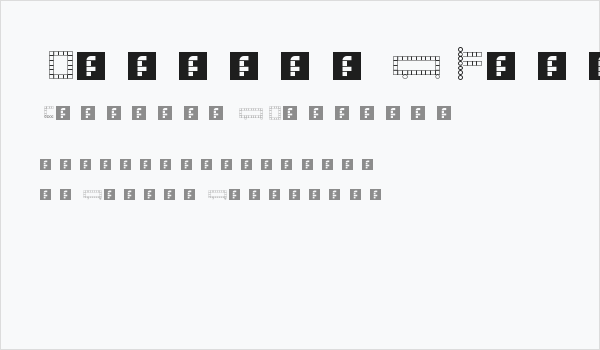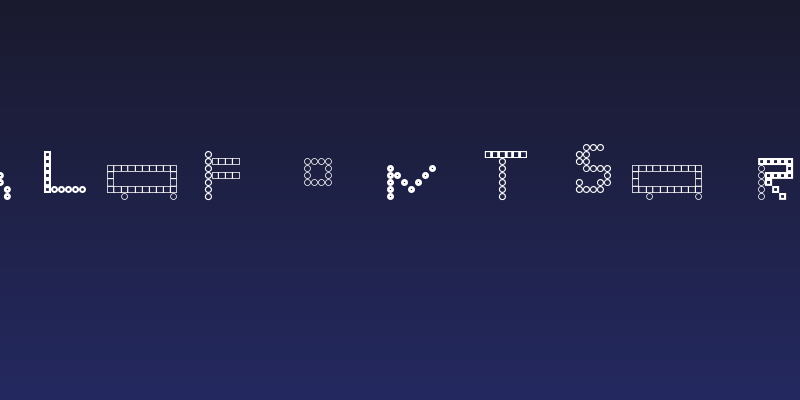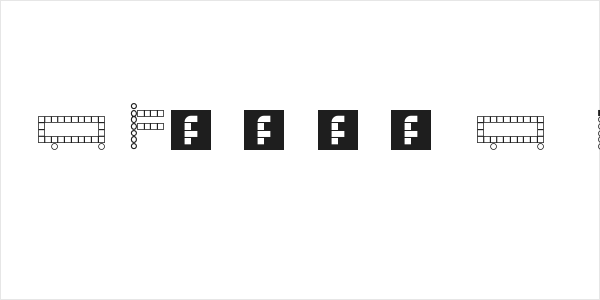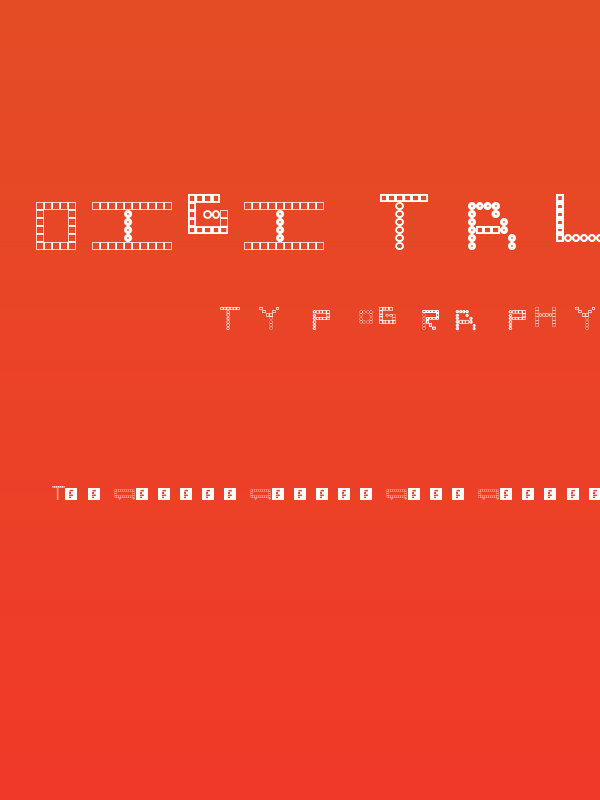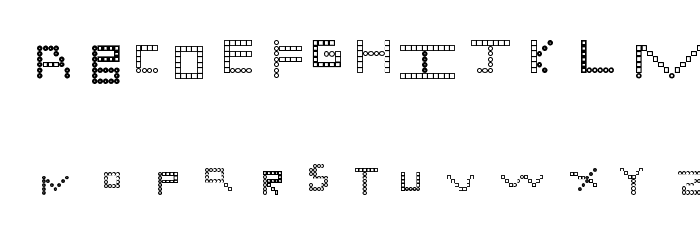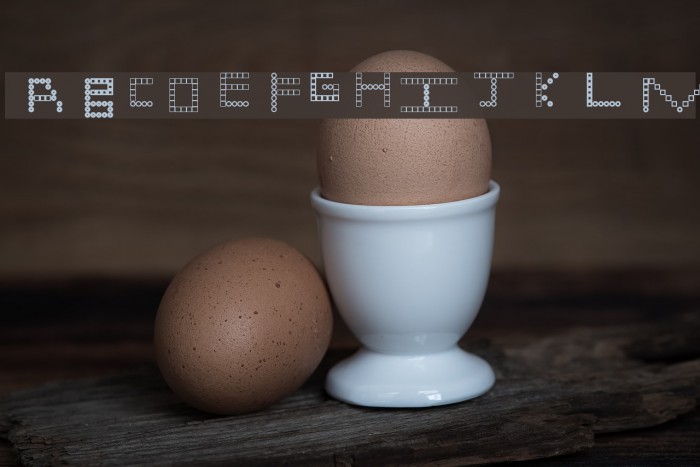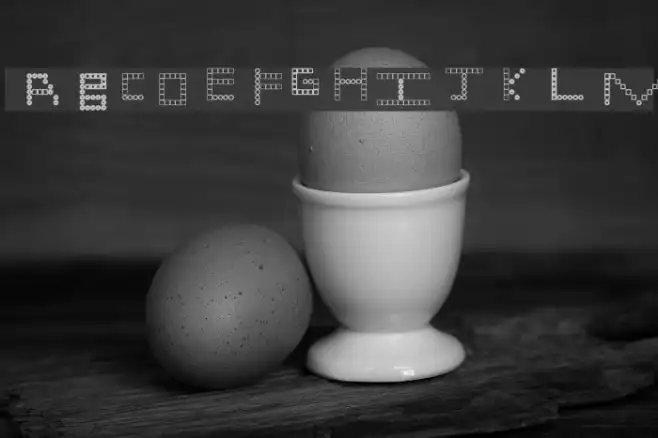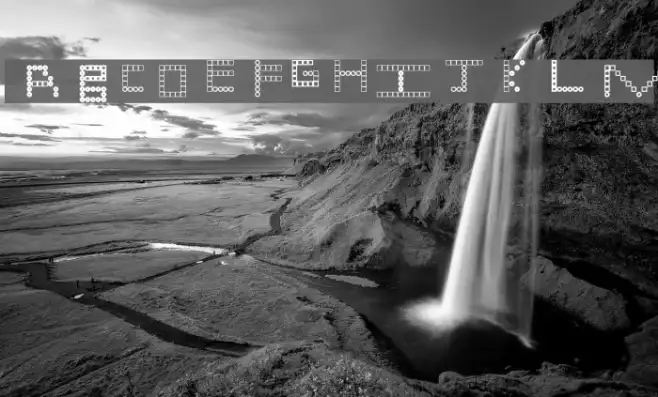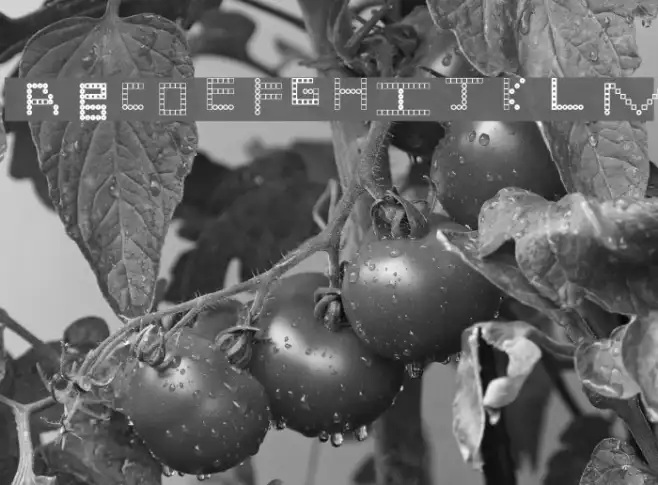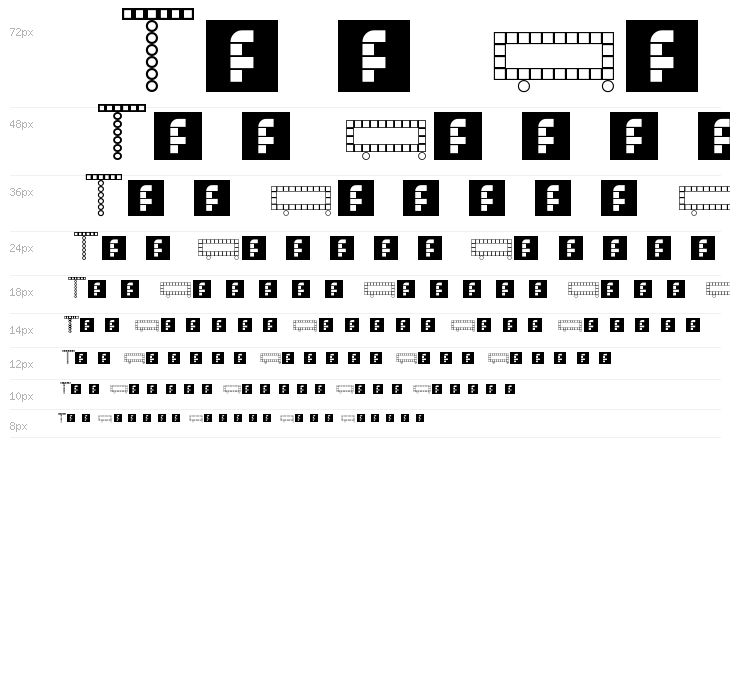
Digital Fonts Regular Font
This font features a unique digital aesthetic, reminiscent of old-school LED displays and dot matrix printers. Each character is constructed using a grid of dots, creating a pixelated effect that is both retro and modern. The uppercase and lowercase letters maintain a consistent style, with clear geometric shapes and uniform dot spacing. Numbers and special characters follow the same design principles, ensuring a cohesive look across all glyphs. This font is ideal for projects that require a digital or technological theme, offering a nostalgic yet contemporary vibe.
| Use Case | Logos, Headlines, Digital Displays |
| Proposed Projects | Ideal for digital displays, retro-themed designs, tech-related branding, and video game graphics. |